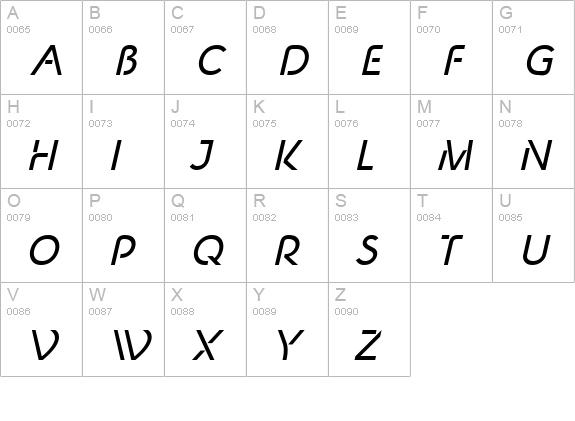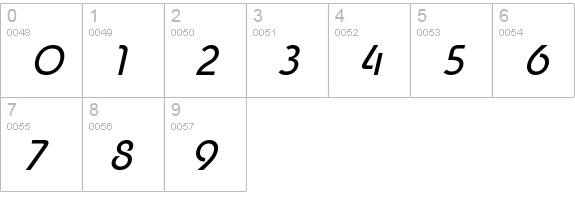
New Shape Oblique Font Details
New Shape Oblique is a distinctive, italic variant in the New typeface family \xE2\x80\x94 well suited to design and typography projects.
Introducing the mesmerizing New Shape Oblique font, a true masterpiece in the world of typography. With its sleek and contemporary design, this font effortlessly blends elegance with a touch of edginess, perfect for adding a modern flair to any project. New Shape Oblique features unique letterforms that are beautifully slanted, giving it a dynamic and eye-catching appearance. The carefully crafted curves and sharp angles create a harmonious balance, making this font both visually striking and highly legible. This font is a true game-changer for designers and creatives alike. Whether you're working on a branding project, a magazine layout, or simply want to elevate your social media posts, New Shape Oblique will undoubtedly make a lasting impression. One of the best parts about New Shape Oblique is that it is freely available to download at FontsMarket.com. This means that you can effortlessly incorporate this stunning font into your designs without any restrictions. It's a fantastic opportunity to have such a high-quality font at your fingertips, ready to unleash your creativity. Don't miss out on the chance to enhance your design projects with the captivating New Shape Oblique font. Download it for free at FontsMarket.com and let your imagination run wild.